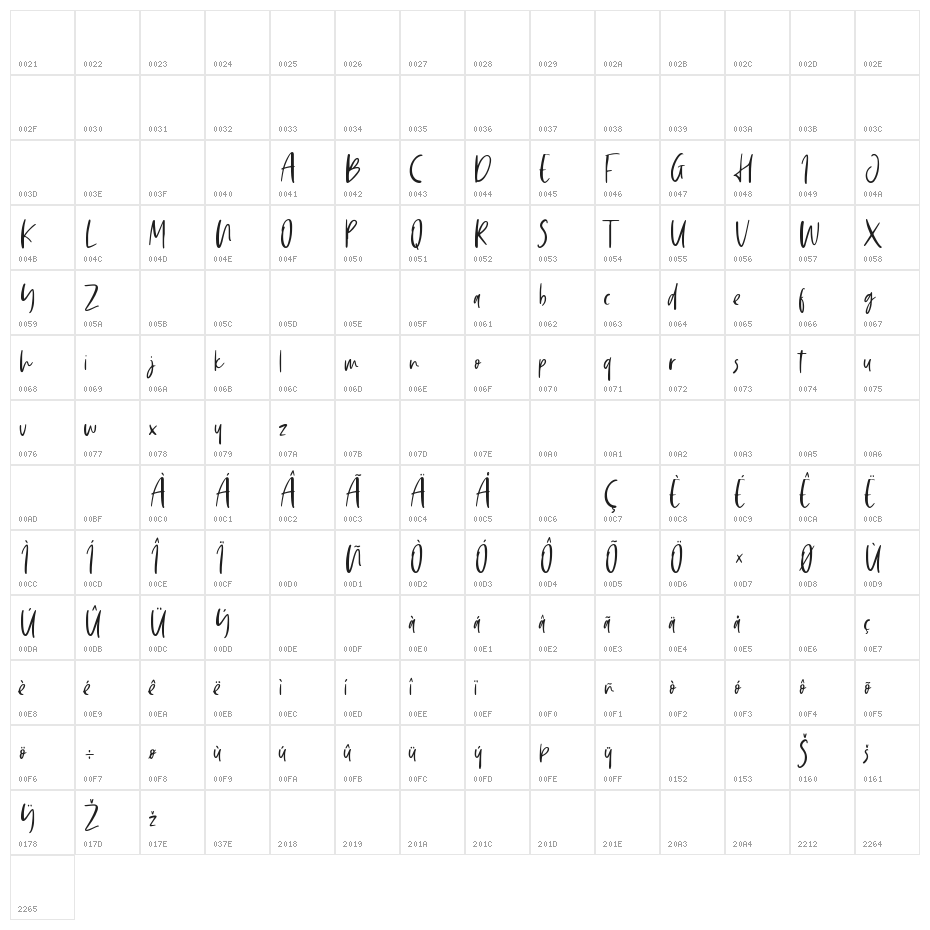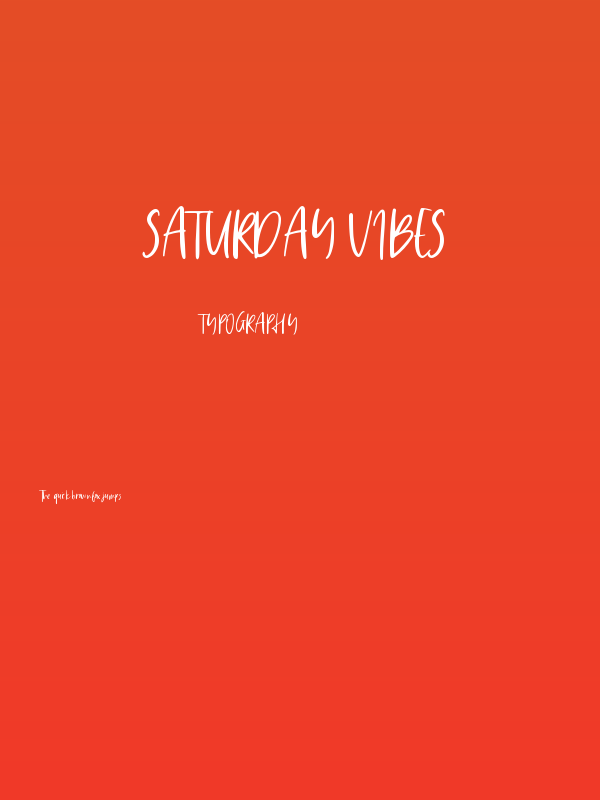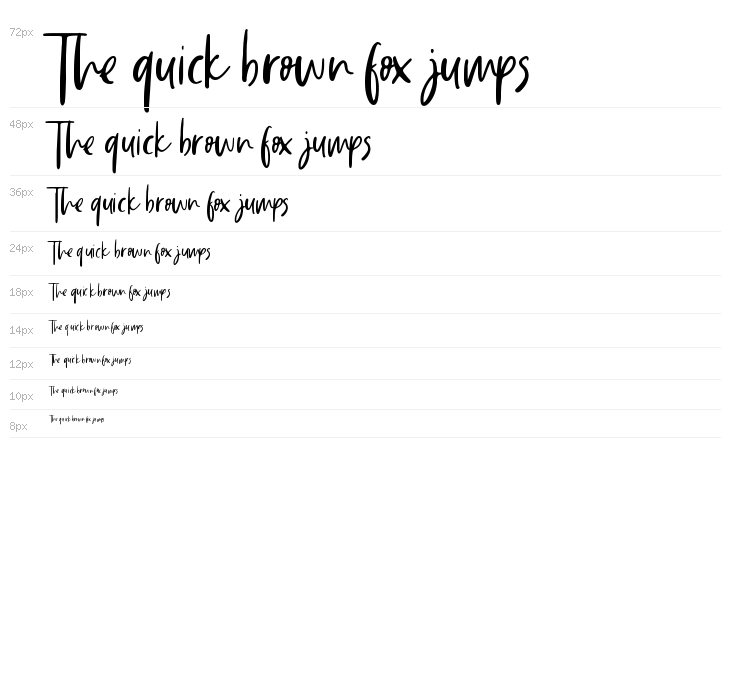
Saturday Vibes Font
Saturday Vibes Description
This font exudes a casual and playful vibe, characterized by its handwritten style with a touch of elegance. The letters are slightly elongated with a smooth flow, giving it a relaxed yet stylish appearance. The strokes vary in thickness, adding a dynamic and lively feel to the text. The uppercase letters are bold and prominent, while the lowercase letters maintain a consistent fluidity. This font is perfect for projects that require a personal and approachable touch, such as invitations, greeting cards, or social media graphics.